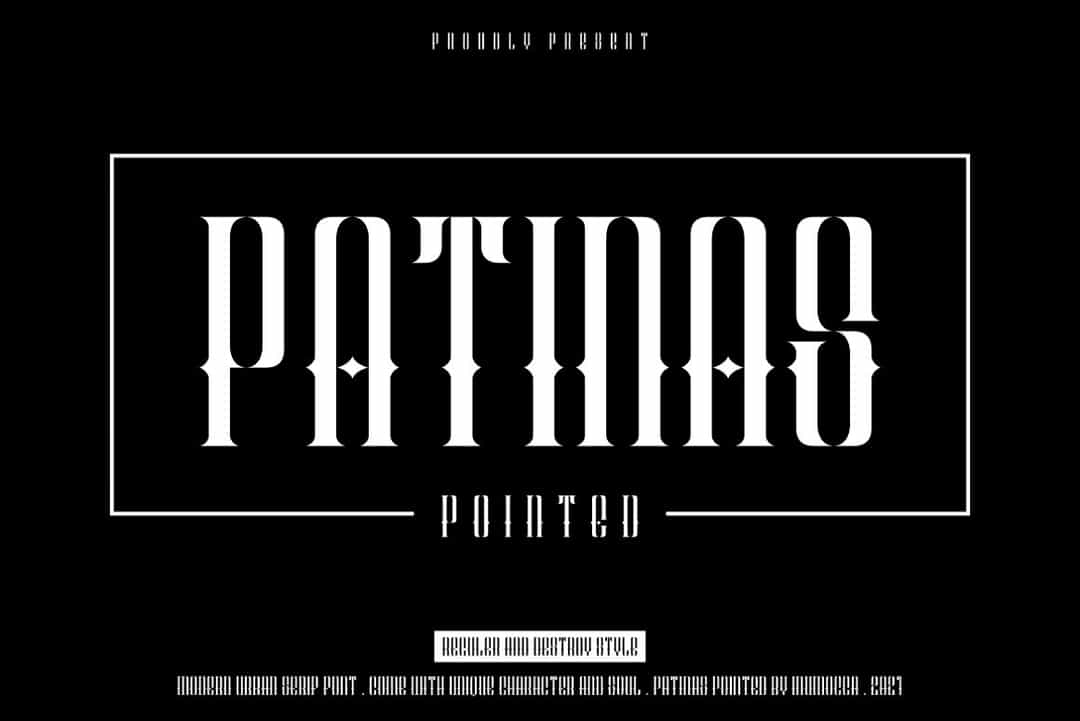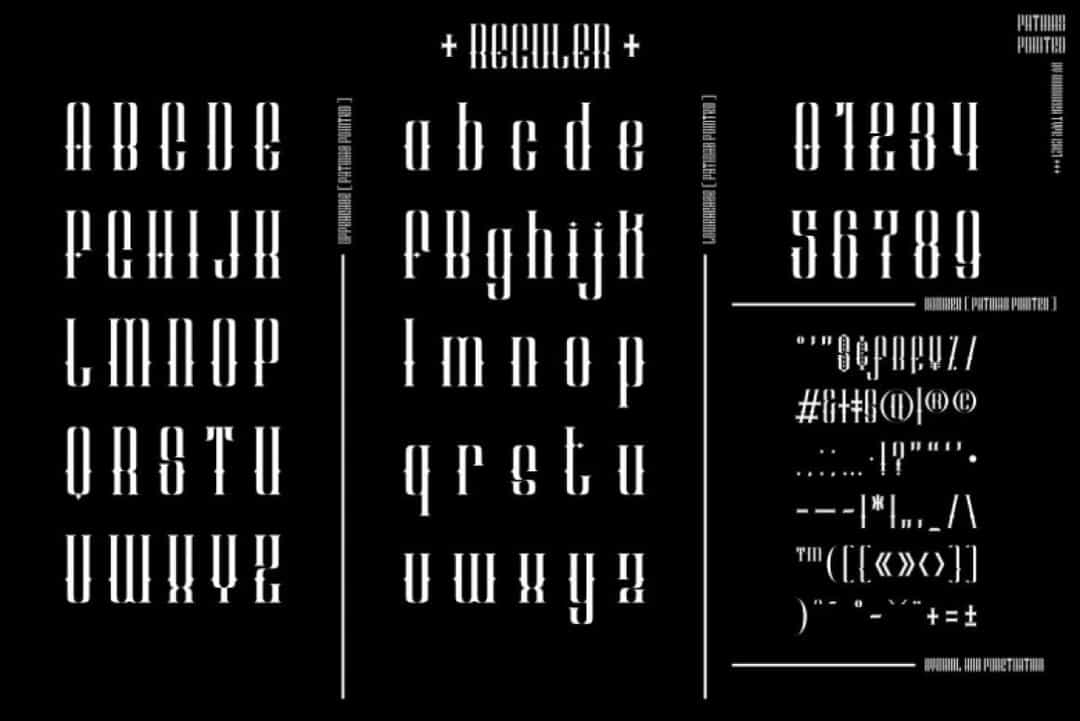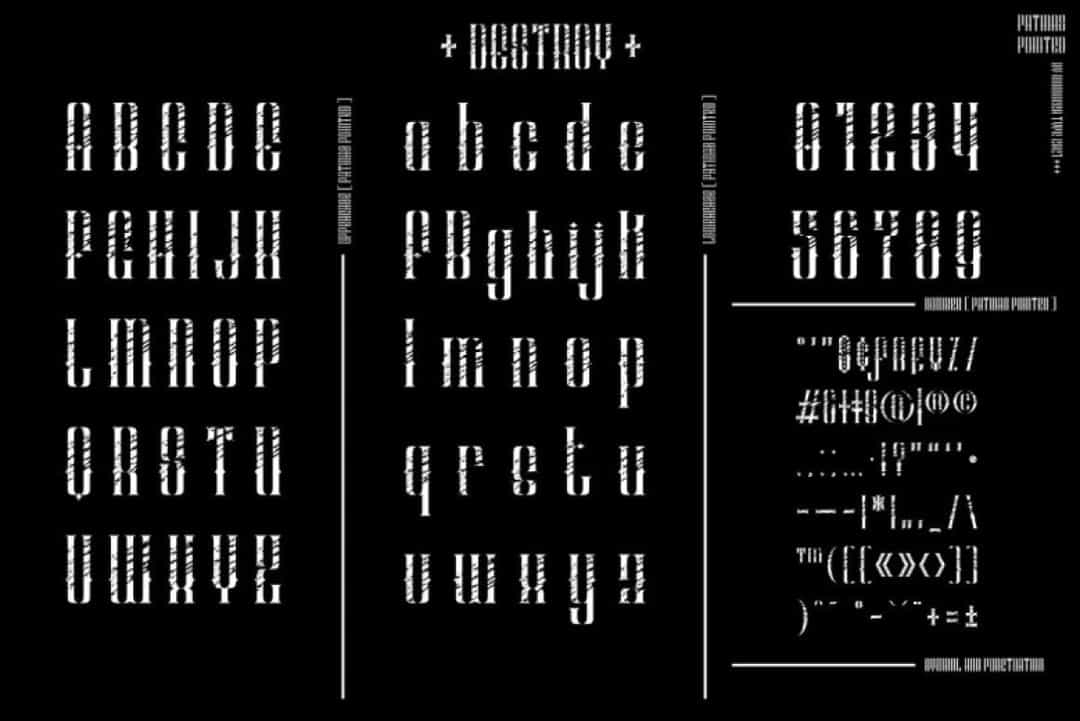
Patinas Pointed is an urban serif font available in two styles, Normal and destroy. Perfect for use in branding projects such as flyer headline letters and signage as well as quotes, posters typography Book pages covers magazine posters quote lettering or logos.